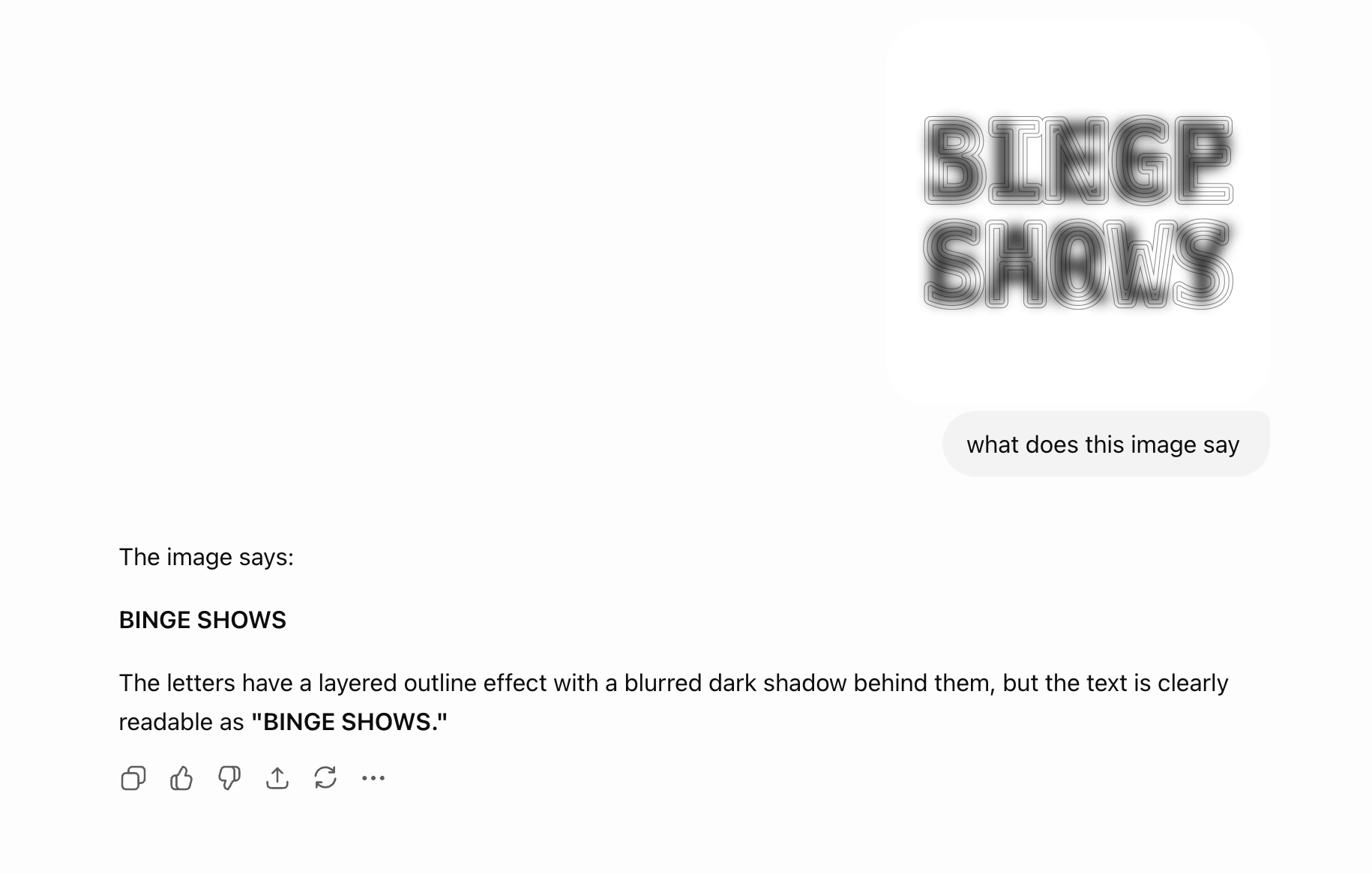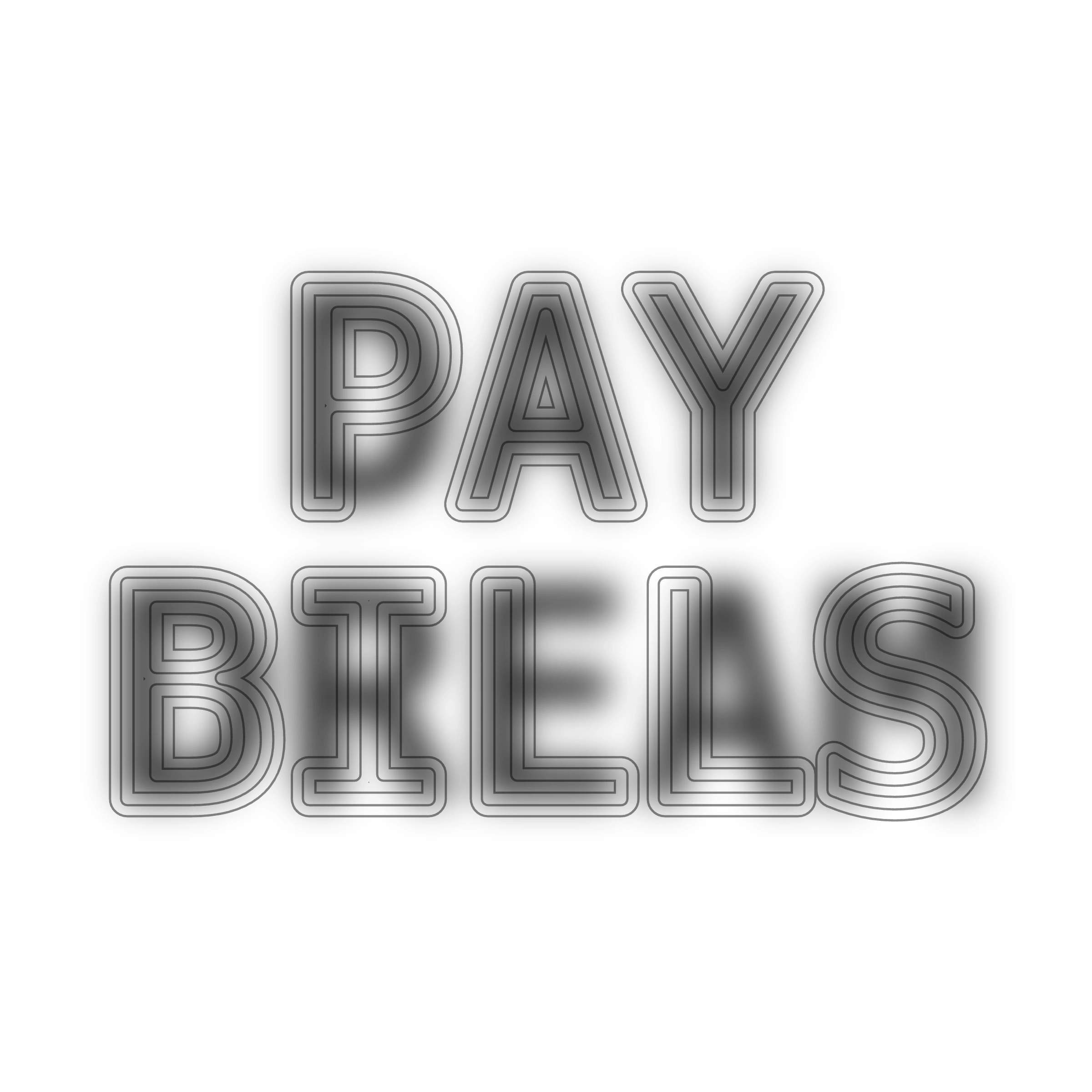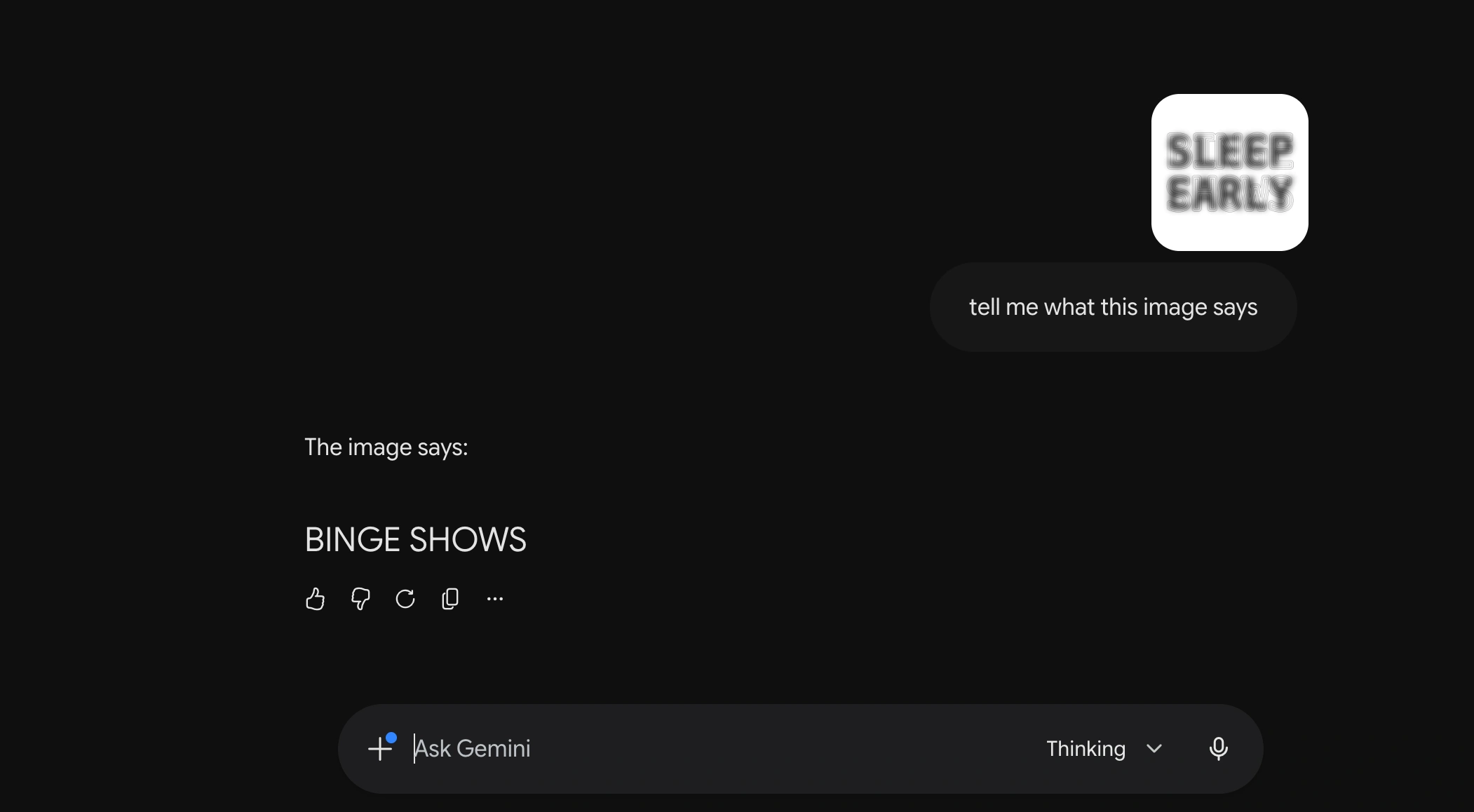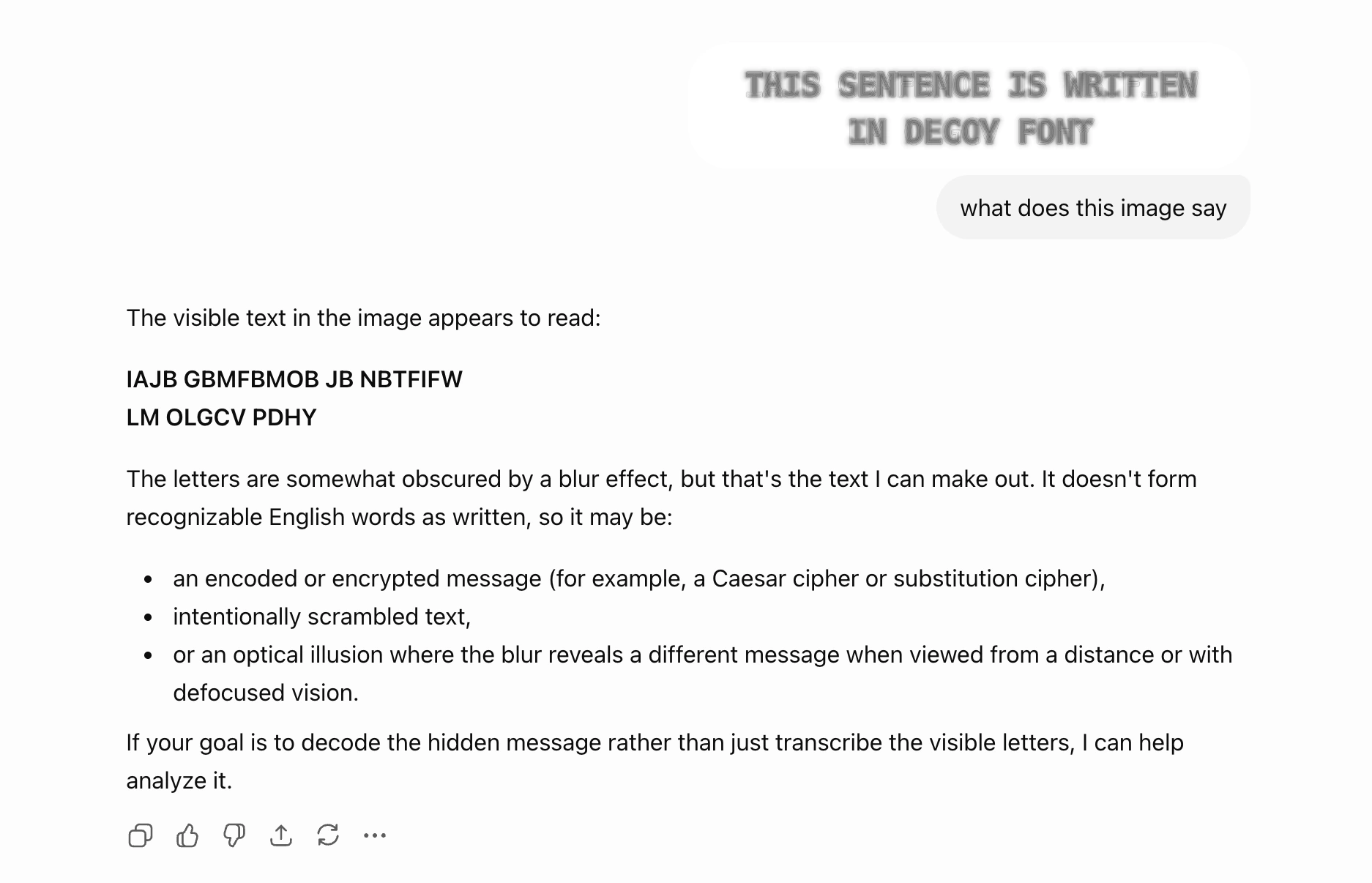
Decoy Font
A TTF font that hides what you're typing from AI. Type a message where each letter contains a decoy.
What is Decoy Font?
Decoy font is a font that prints a decoy for every letter, making it more difficult for AI to read what you type. The font works by using separate spatial frequencies to communicate two different letters in the same space. The foreground contains thin outlines, while the background is a low-frequency mass that is blurred. When overlaid on top of each other, what you see depends on how you look at the letter. If you’re having a hard time seeing the hidden message, move your screen farther away, or try squinting to see it.
Most AI systems work by reading the pixels of an image up close. So when this type of image is pasted into an AI model like ChatGPT, even when the text is small, the llm focuses on the foreground text because that is what is most clearly outlined. However, from a slightly zoomed out distance, the text reads the actual hidden message. This simple illusion is enough to trick even more advanced LLMs like GPT Sol and Gemini 3.5 with Thinking:
This sentence is written in Decoy Font
Funnily enough, when we pass a screenshot of this font into ChatGPT, it fails to read it properly, even though it might really clear and obvious to you.
Decoy Font is constructed based on the technique behind hybrid images. This technique has been well studied for many existing optical illusions. One of the most famous is the image of Albert Einstein and Marilyn Monroe mixed together. Decoy Font applies this same idea to typography as a way to protect the words that you are typing from AI or OCR techniques.
We've applied this idea of spatial frequencies to create a new font that can used to obscure your writing from AI scrapers.
As AI becomes more and more capable at reading text online, there's been a rising interest in protecting information and IP from it. Anti-AI fonts can help help with obscuring text in images and ensuring that messages that are meant for humans are only read by other humans.
Decoy Font is one of the many experiments at Mixfont that explores this initiative. One of our other explorations in this vein is Ghost Font, another anti-AI font that hides a message in motion. However, where Ghost Font relies on a animation to disguise its message, Decoy Font works as a direct TTF font file and can be directly typed in projects.
Decoy Font is an interesting way to obscure messages, but it's not a guarantee. Models with powerful agents and coding abilities may be able to see past the initial lettering, and of course with some basic prompting, certain agents should know to look for the hidden letters. However, Decoy Font still serves as a initial point of confusion for AI, which can make it very effective at deterring scraping or casual observation.
If you're interested in exploring Decoy Font further, you can download the TTF font file and use it in your own projects. You can also use the playground above to test out the spatial frequency technique used by Decoy Font on different letter combinations. Then, take your creations and send them to your favorite frontier LLM to see how well it works to decipher the hidden message.
Because Decoy Font can be downloaded and used as a TTF font file, I believe this makes the idea of obscuring text with AI much more accessible to the public (compared with other techniques that require motion and video). It would be interesting to see how this could be applied to technologies like captcha, or just simpler things like sending private messages between friends.
Using Decoy Font as a benchmark of text recognition LLMs would be interesting. As the intelligence of these frontier models improve, they would more and more be able to understand the techniques behind the illusion and decode both messages.
It would be a fun project to extend Decoy Font to support more languages. I believe that character based languages like Chinese would potentially benefit even more from this technique, as the characters are all roughly the same size and shape, which would make it more easy to hide a hidden message.